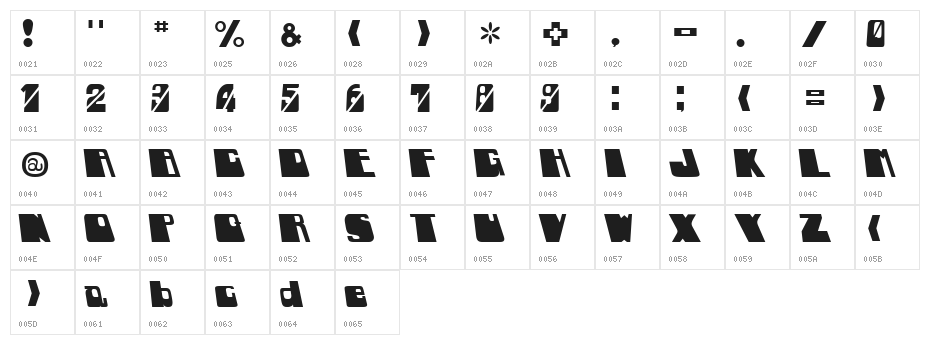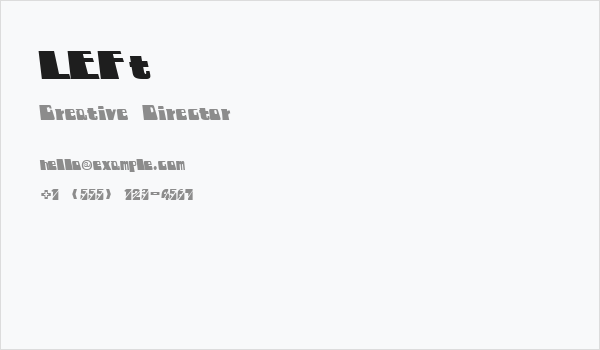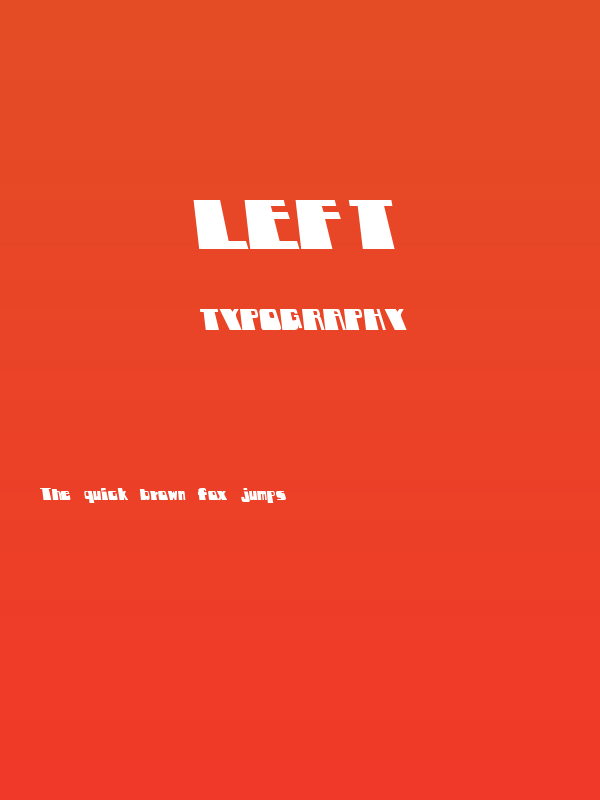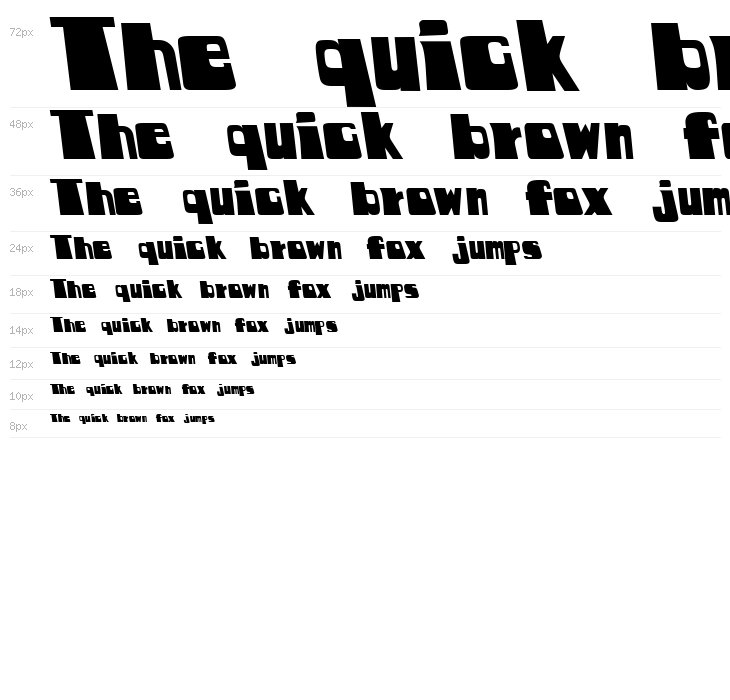
LEFt Font
LEFt Description
This font features a bold and dynamic style with a strong geometric influence. The characters are constructed with sharp angles and clean lines, creating a sense of movement and energy. The uppercase letters are particularly striking, with a blocky and robust appearance, while the lowercase letters maintain a consistent weight and style. The numerals and special characters follow the same design principles, ensuring a cohesive look across all elements. This font's unique style makes it stand out, offering a modern and edgy aesthetic.